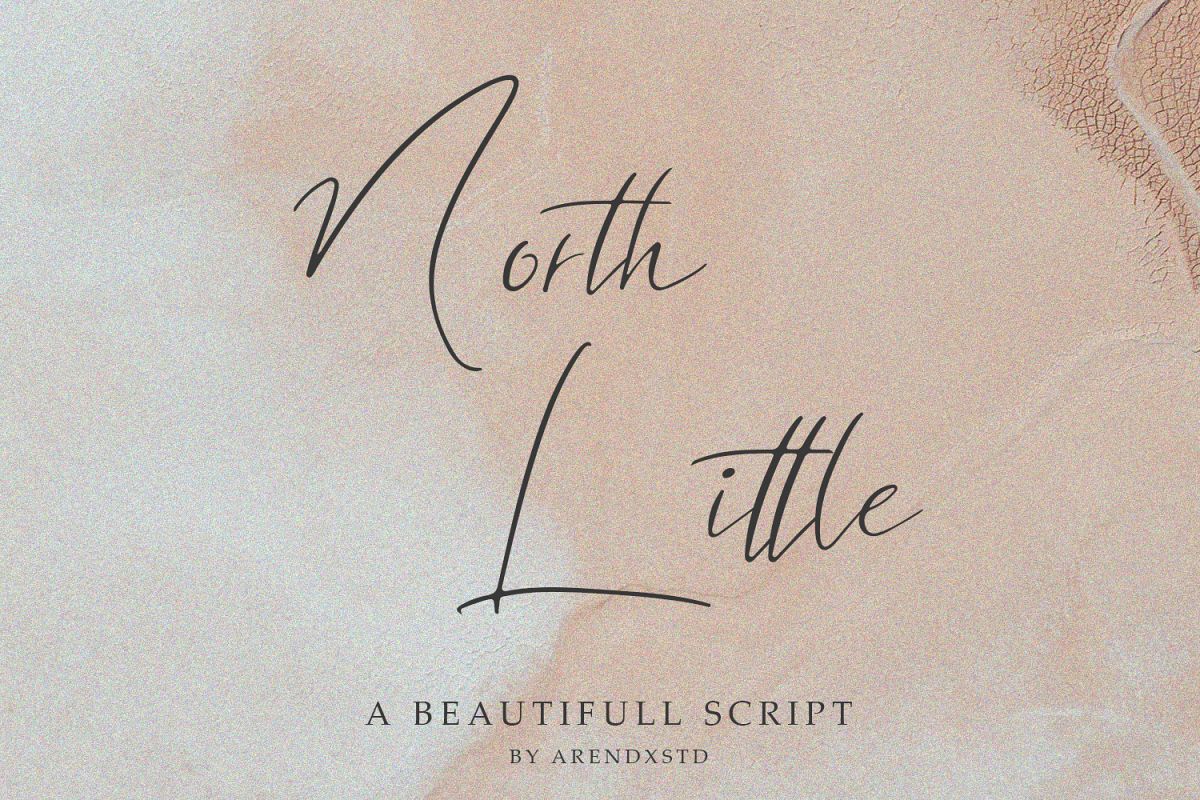
North Little Signature Font
North Little
North Little - is a handmade font, elegant and stylish character! which is perfect for invitations such as greeting cards, branding materials, business cards, quotes, posters, and other design concepts!
• Character Set A-Z
• Numerals & Punctuations (OpenType Standard)
• Accents (Multilingual characters)
• Swash